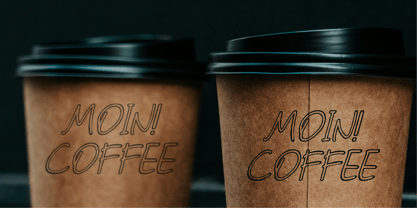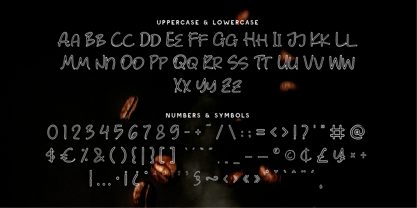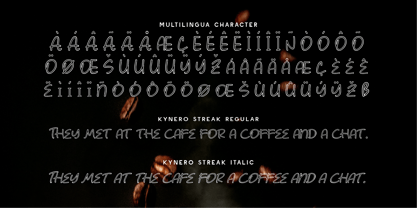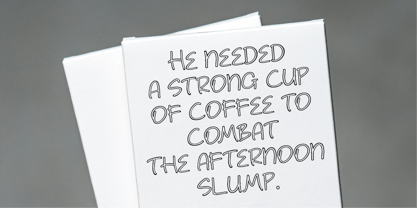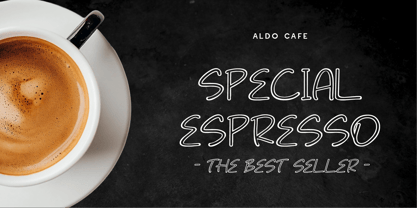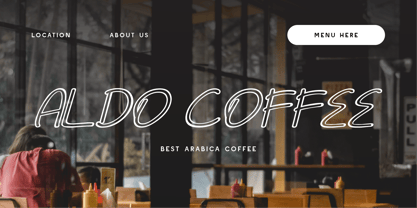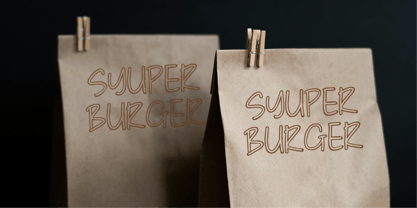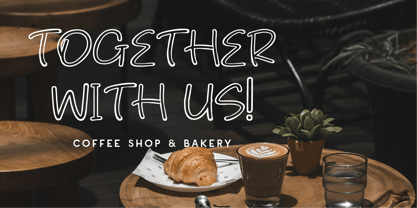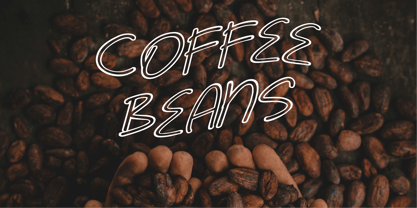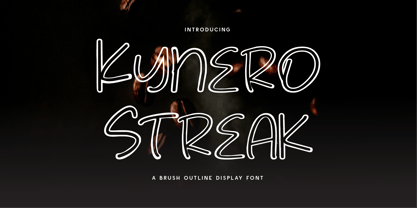
CF Kynero Streak
Kynero Streak – A Bold Brush Outline Display Font
Unleash the raw energy of hand-drawn design with Kynero Streak, a brush outline display font that merges artistic spontaneity with modern edge. Featuring bold, outlined strokes with a handcrafted brush texture, this font adds an electrifying urban and creative feel to any project.
Perfect for branding, posters, album covers, social media, streetwear, and bold advertising, Kynero Streak commands attention with its free-flowing lines and contemporary brush aesthetic. Whether you're creating a gritty urban look or a sleek modern design, this font delivers a stylish, rebellious vibe.
Why Choose Kynero Streak?
🖌 Handcrafted Brush Outline: Unique outlined strokes for a modern graffiti-style look.
🔥 Edgy & Expressive: A dynamic font with personality and attitude.
🎨 Versatile & Bold: Perfect for logos, merchandise, posters, and branding.
🌍 Multilingual Support: Includes numbers, symbols, and extensive language coverage.
- Standard Character A-Z, a-z, 0-9, Punctuation & symbols
- Regular and Italic